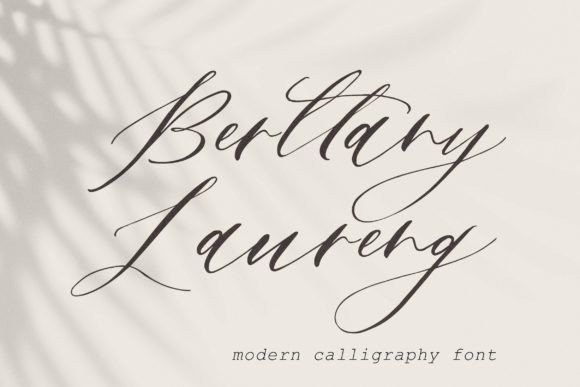
Berttany Laureng Font
Berttany Laureng Script Font is a stunning handwritten font that exudes elegance and sophistication. With graceful curves and delicate strokes, each letter is a work of art, conveying a sense of refinement and beauty. Perfect for invitations, branding, and any project where a touch of elegance is required.